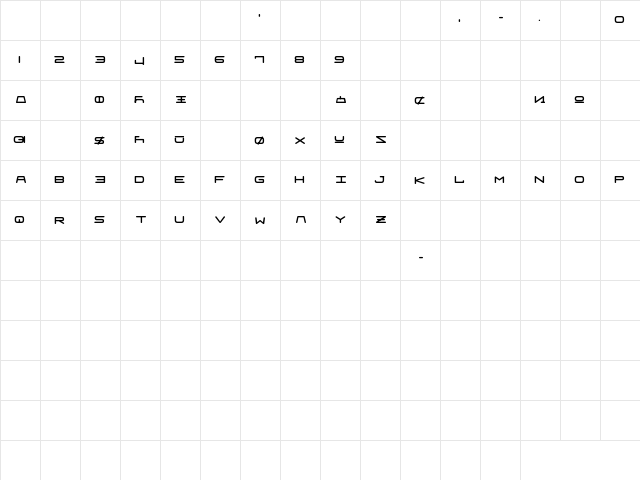
Fraulein Unifon Regular
Design Context for Fraulein Unifon Typeface
Fraulein Unifon takes a measured approach to typography — its balanced proportions and neutral character make it a reliable workhorse for both digital and print work.